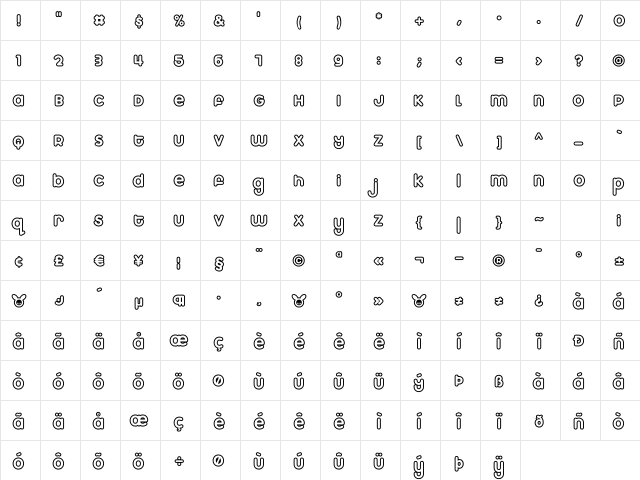
MarshmallowOutline Regular
Design Context for MarshmallowOutline Typeface
MarshmallowOutline brings ornamental detail and strong personality to headlines and identities, where visual impact matters more than quiet functionality.
Font Pairing: Pair with a clean neutral sans-serif for body copy to let MarshmallowOutline's character lead without overwhelming the composition.
Pro Tip: Use MarshmallowOutline exclusively at display sizes — it was designed to be seen, not read at length. Let a neutral companion handle body copy.